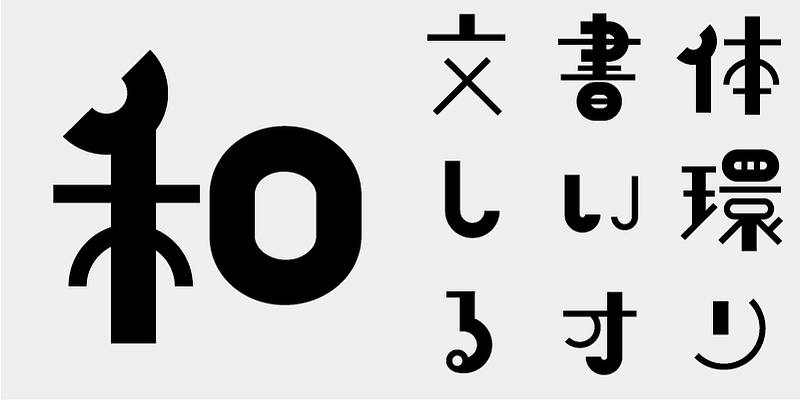
AB Kotsubu Font Free Download
AB Kotsubu Font Free Download is a modern and playful sans-serif typeface that blends clean geometric shapes with a warm, inviting feel. Its rounded edges and slightly condensed form give it a friendly, approachable character, making it ideal for a wide range of design projects, from branding and social media graphics to websites and advertisements.
The AB Kotsubu font is versatile, supporting both Japanese and Latin scripts, which makes it suitable for bilingual projects or designs aimed at a global audience. Whether you're designing a children's book, logo, or web interface, this font offers a perfect balance of simplicity and personality.